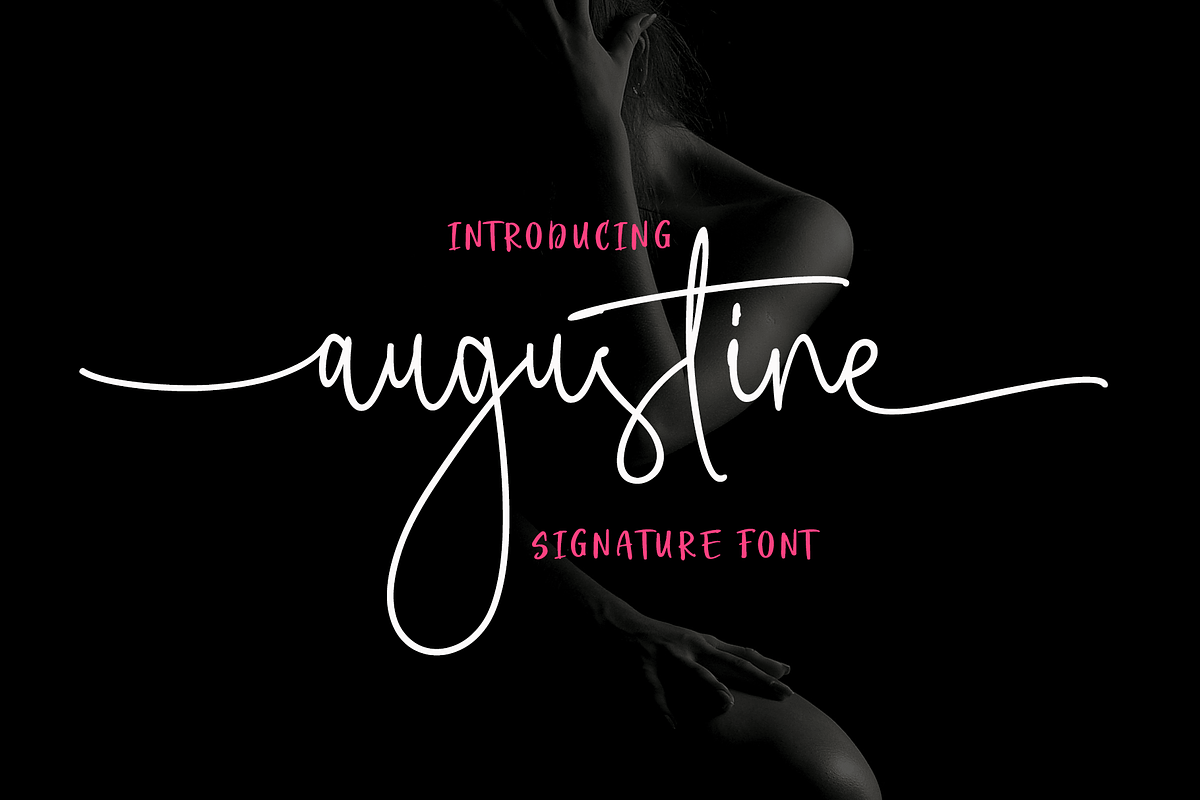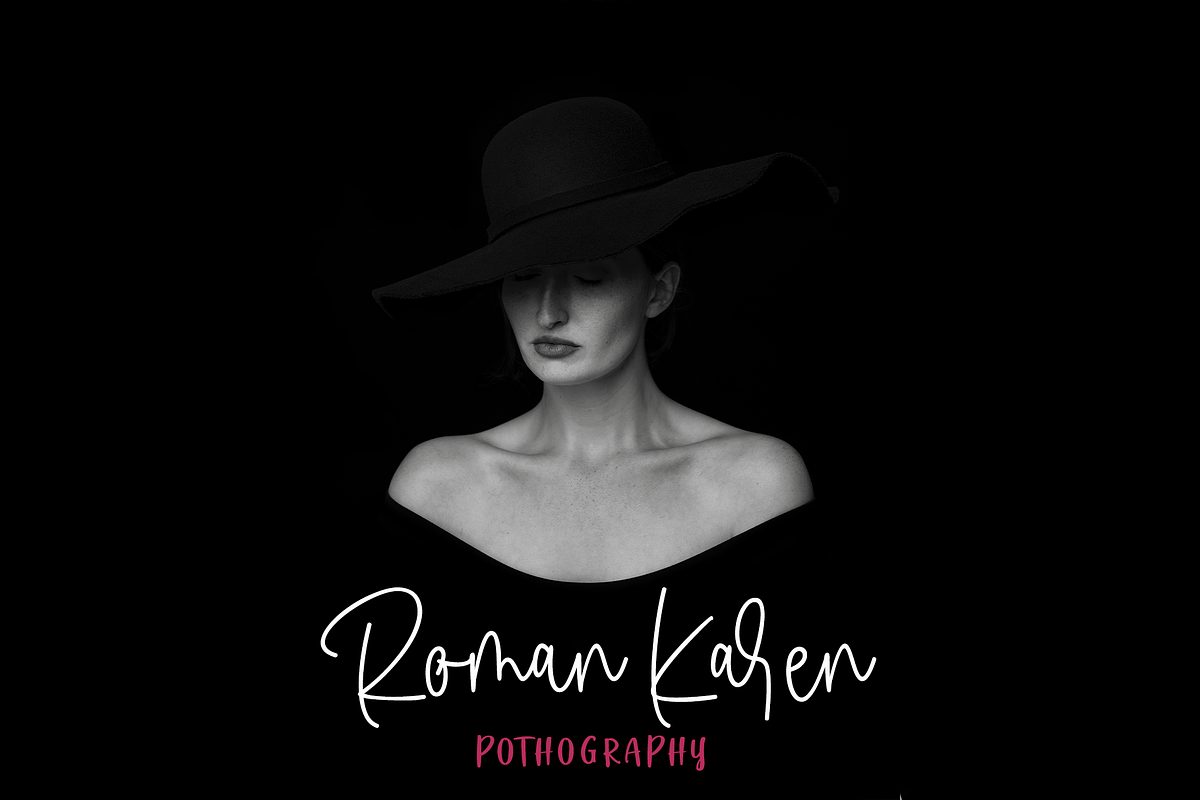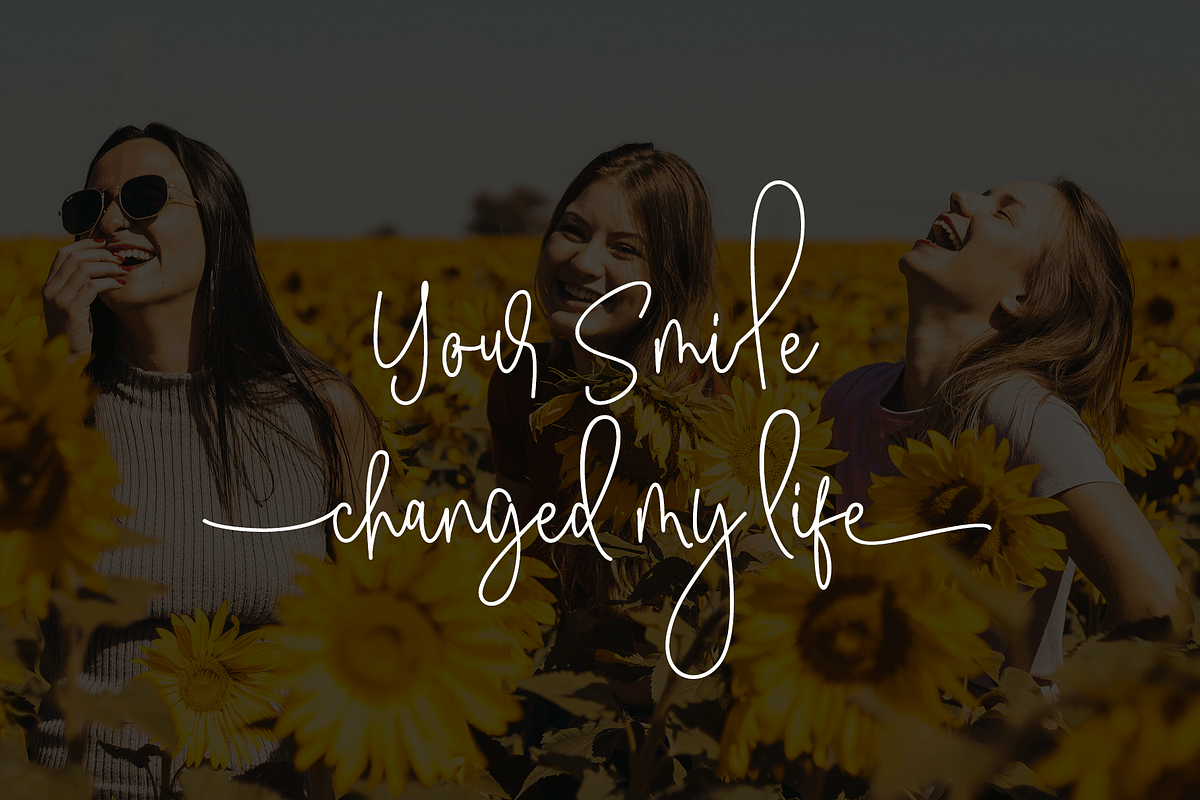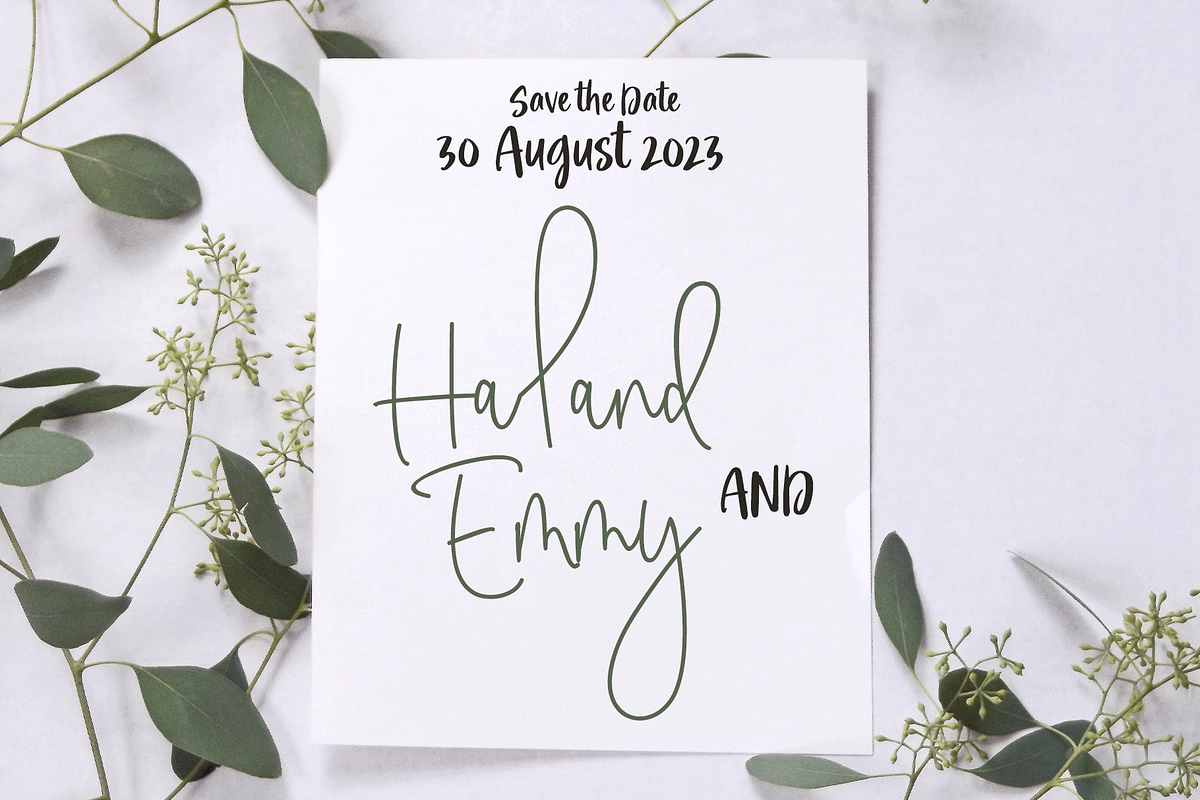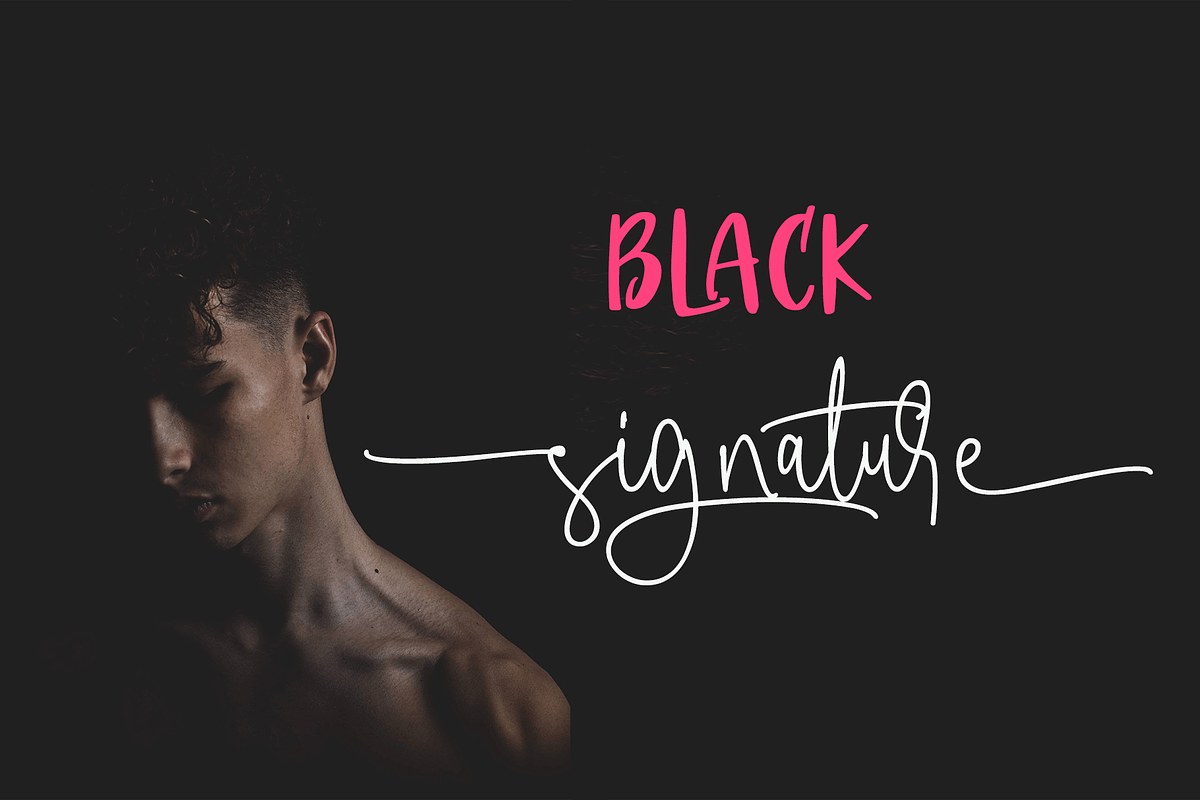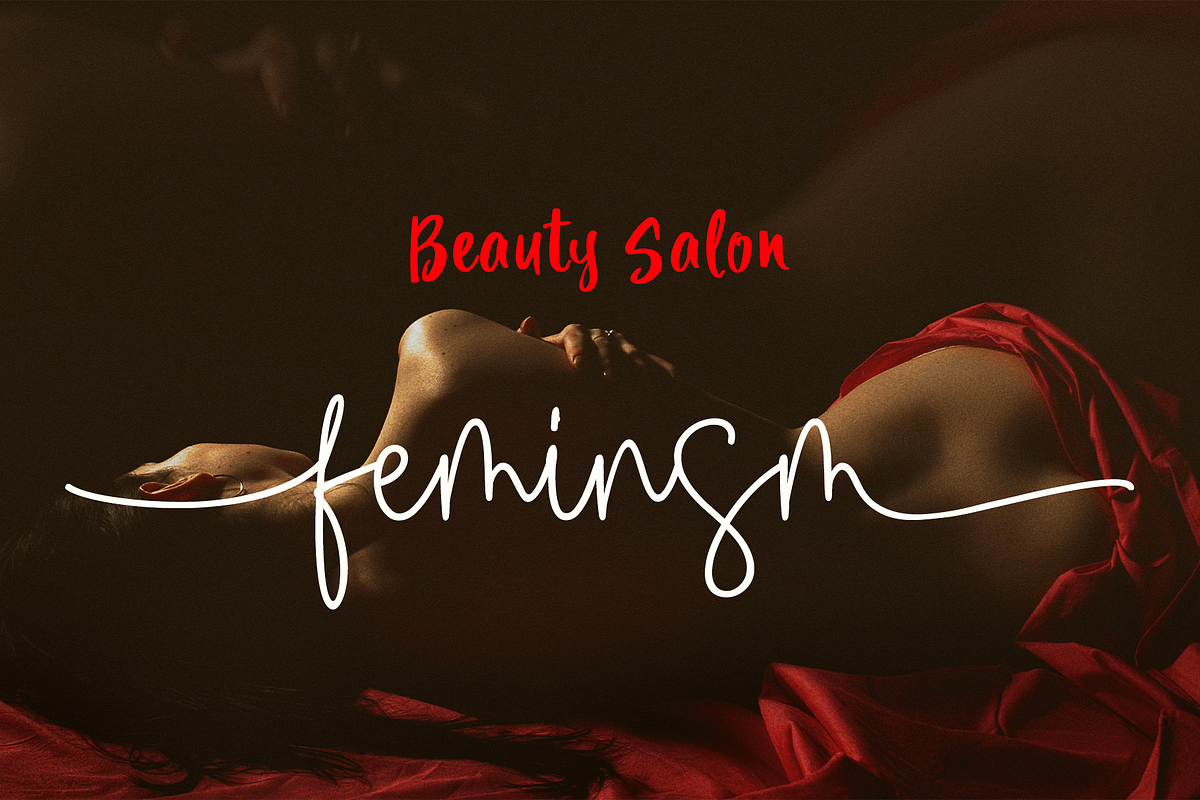
Augustine Signature
Augustine Signature a work that is purely handwritten, has its own characteristics with the style of monoline. this is perfect for invitations, signatures, blogs, social media, business cards, product brands.
Augustine Signature has Stylistic standard, Stylistic Alternate, Stylistic Sets and ligatures. and includes uppercase and lowercase letters, numbers and punctuation marks.